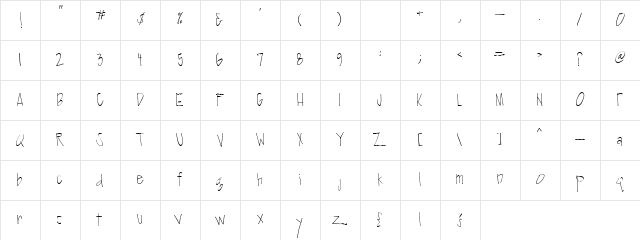
2Peas Animal Crackers Regular
Design Context for 2Peas Animal Crackers
2Peas Animal Crackers is a composed and adaptable typeface that performs quietly and consistently across a wide range of design contexts.